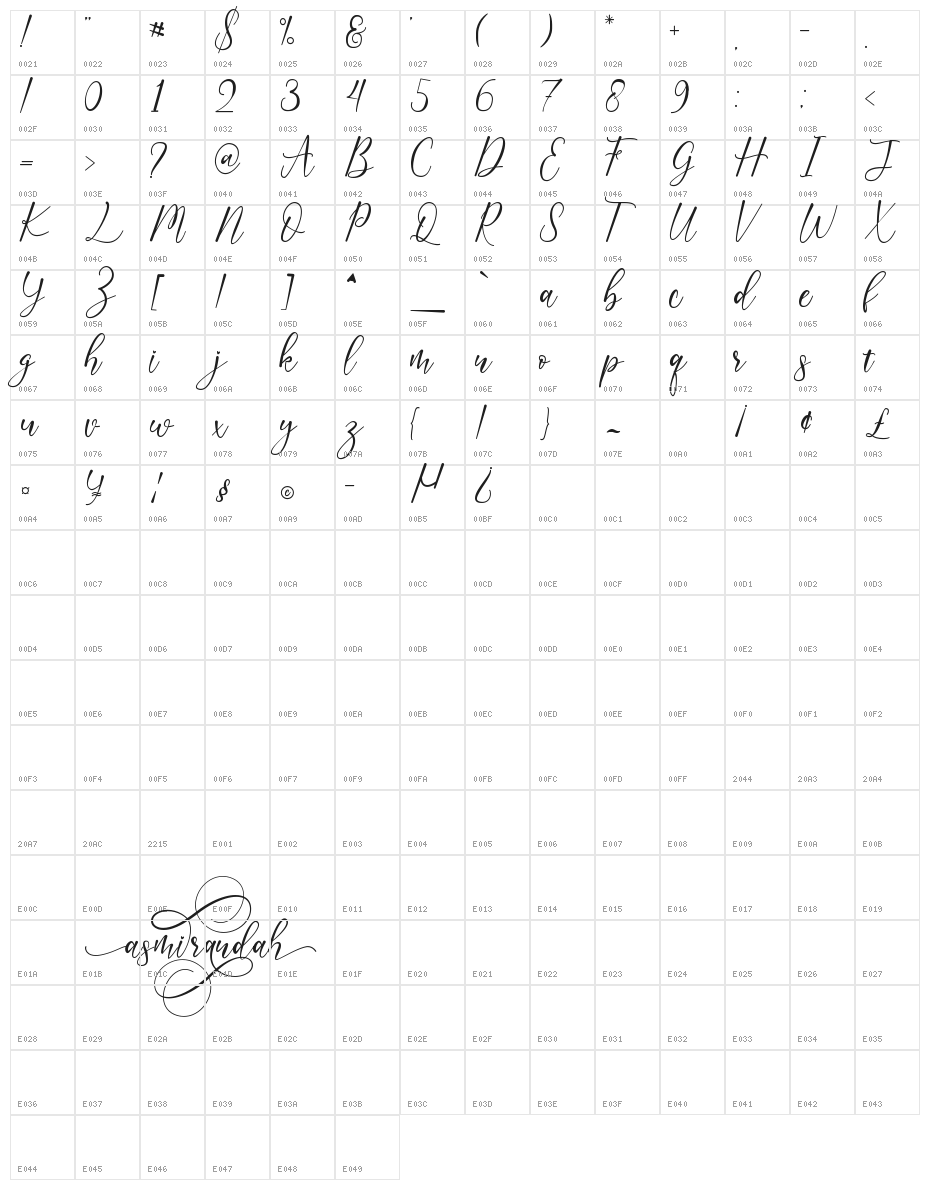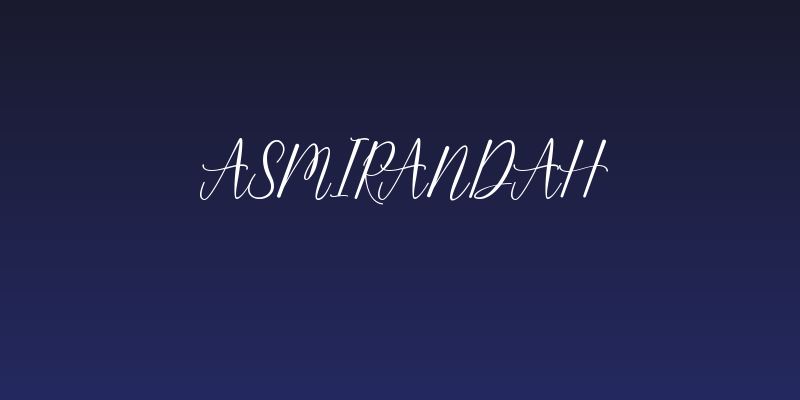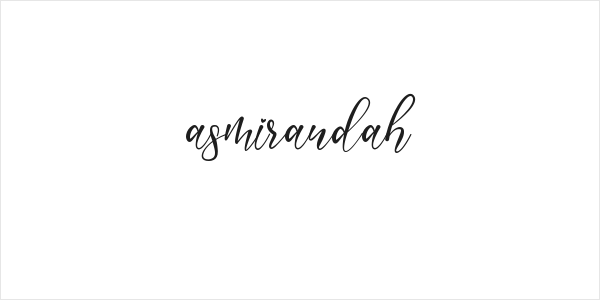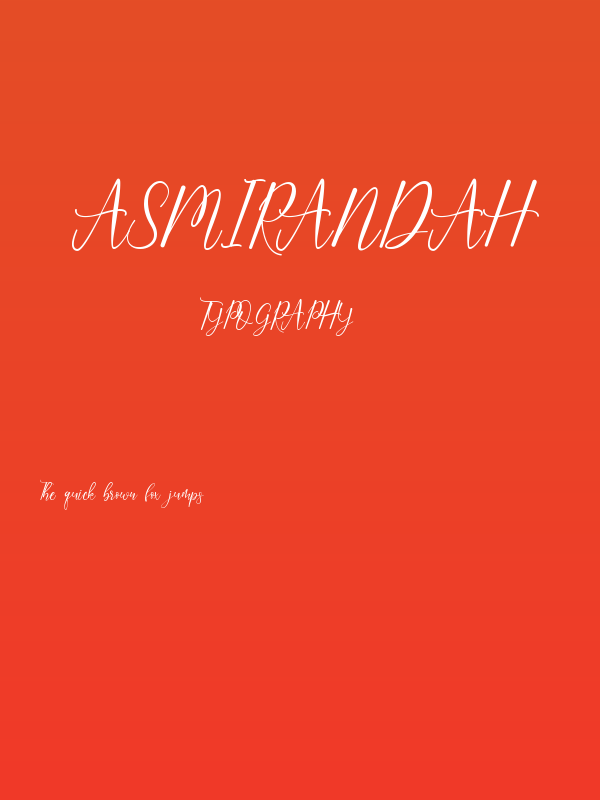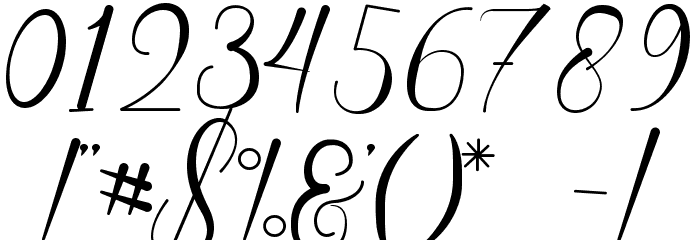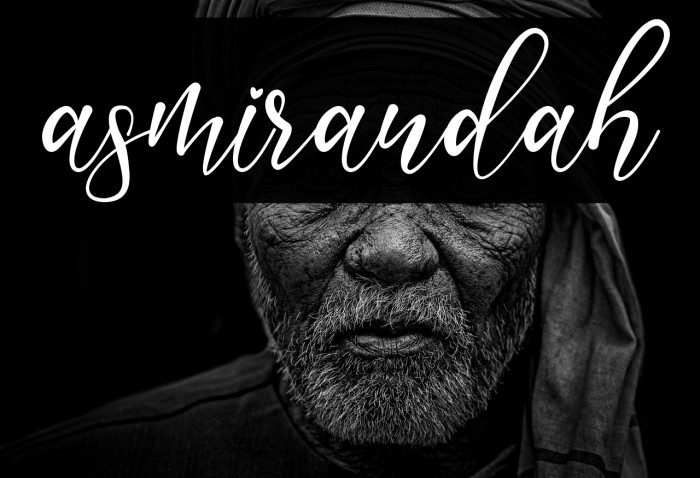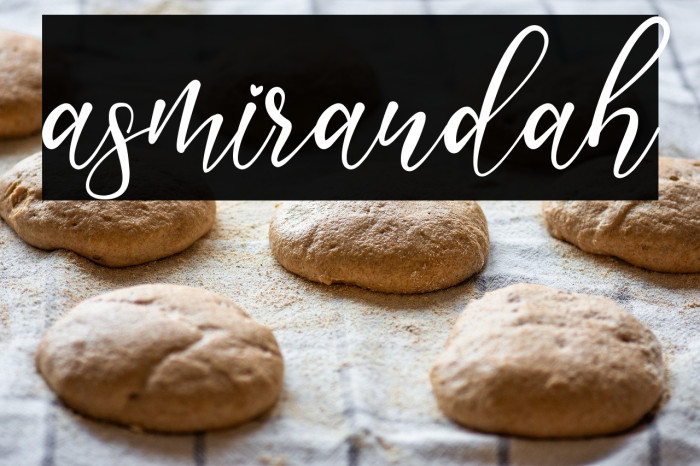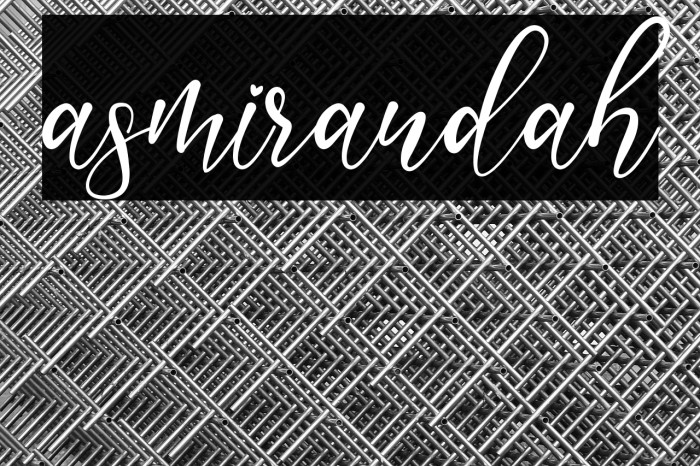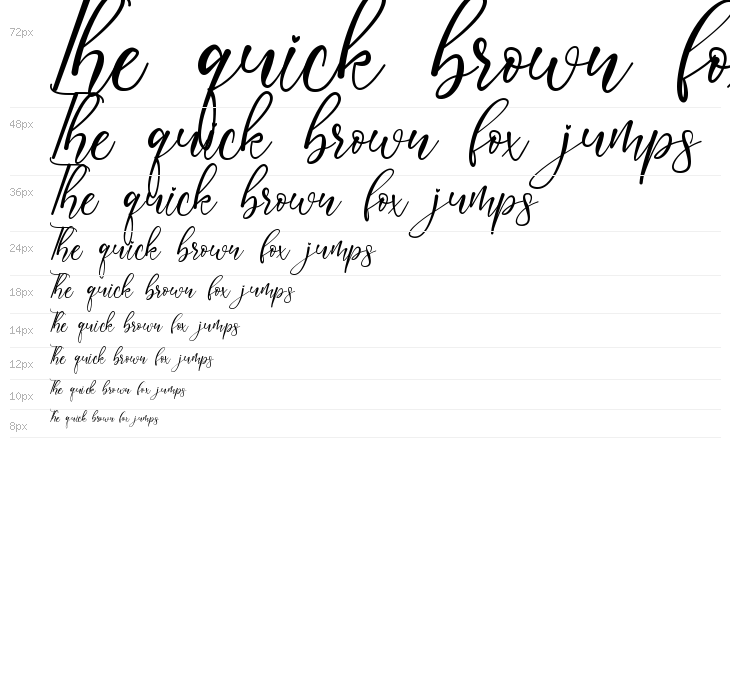
asmirandah Font
asmirandah Description
This font features an elegant and flowing script style, characterized by its smooth, cursive letterforms. The uppercase letters are tall and graceful, with sweeping curves and loops that give a sense of movement and fluidity. The lowercase letters maintain a consistent style, with delicate connections between characters that enhance the script's cohesive appearance. The numerals are stylishly integrated, maintaining the overall script aesthetic. Special characters are thoughtfully designed to match the font's elegant style, making it versatile for various design needs. The font's overall appearance is sophisticated and artistic, suitable for projects that require a touch of elegance and personality.
| Overall Style | Elegant, Artistic |